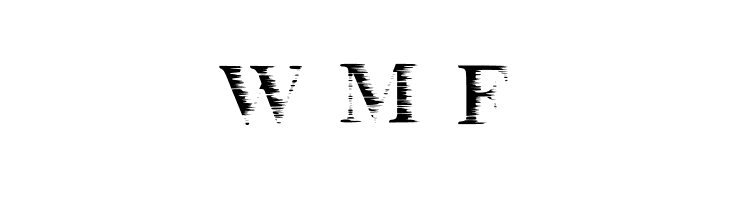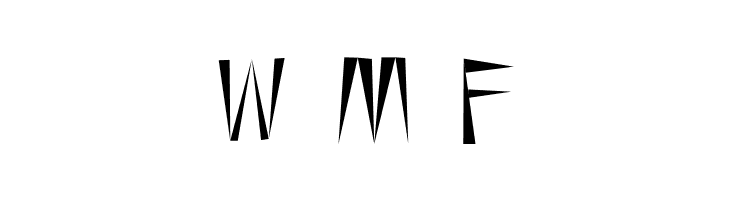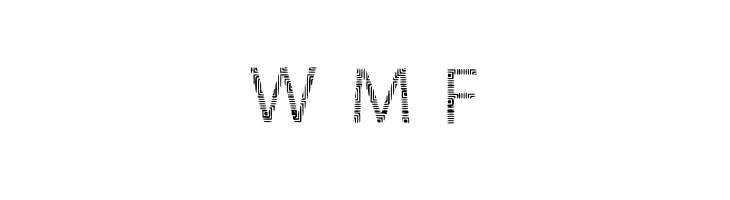
Antivirus Viruses Regular Font
Nouman
A playful, hand-drawn style font with bold, irregular characters.
Scratched Font
A playful, hand-drawn font with an artistic and whimsical style.
Storms of Tornado Italic Font
An italicized, jagged font with a dynamic and chaotic style.
Storms of Tornado Regular Font
A bold, distressed font with jagged edges and a stormy appearance.
Spreading Wind Regular Font
A textured, speckled font with a dynamic, wind-blown appearance.
Master Typer Font
A playful, handwritten font with artistic flair and irregular strokes.
Scratched-Italic Font
A dynamic, handwritten-style font with an italicized, energetic appearance.
Box And Boxes Font
Nouman
A decorative font with box-patterned letters, offering a modern and whimsical style.
Sword of Circuits-Regular Font
Nouman
A circuit-inspired font with intricate line patterns and a futuristic feel.
Deadly_race Font
Nouman
A bold, distressed font with a dynamic, scratched effect.
Deadly_race_Italic Font
Nouman
A bold, italicized font with a distressed, grunge effect for dynamic designs.
Dropping Flyer Italic Font
Nouman
An energetic, italic font with jagged, textured strokes.
Tomb of Clay-Regular Font
Nouman
A modern, glitch-style font with a dynamic, distressed appearance.
Sharpness Font
Nouman
A bold, angular font with sharp, geometric shapes and high contrast.
Dropping Flyer Regular Font
Nouman
A playful, dripping font with a dynamic, hand-drawn style.